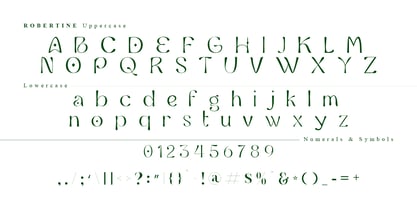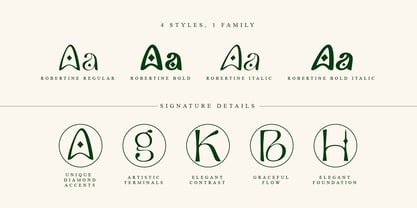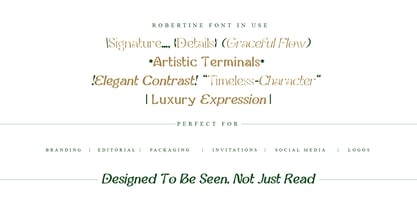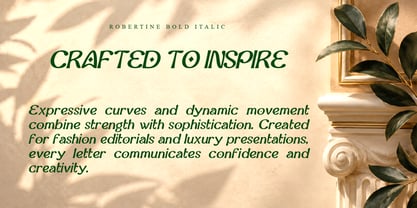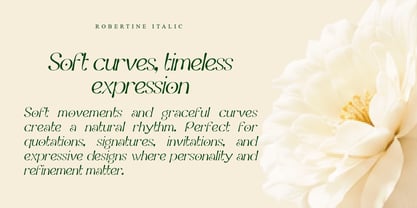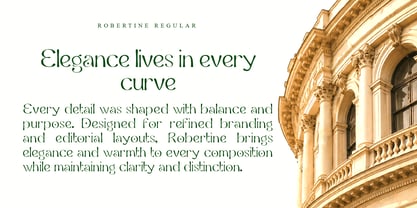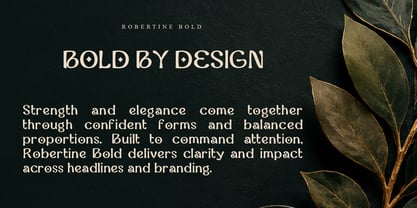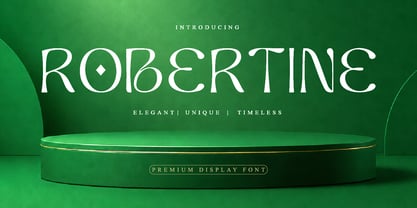
Robertine
Die Schriftfamilie Robertine wurde von Mukiibi Robert entworfen und von Robraphics veröffentlicht. Robertine enthält 4 Stile und Familienpaketoptionen. Mehr über diese Familie
Robertine is a decorative serif typeface family crafted to bring elegance, personality, and timeless expression to modern design. With graceful curves, refined details, and balanced proportions, it is ideal for branding, editorial layouts, packaging, invitations, fashion, and luxury visual identities.
Robertine combines artistic character with everyday versatility, helping designers create distinctive and memorable work with confidence.